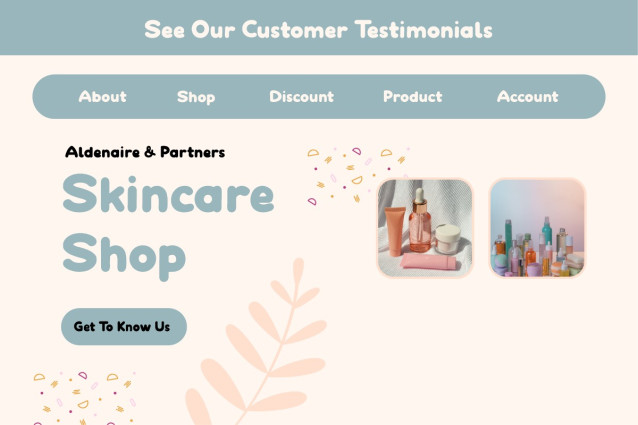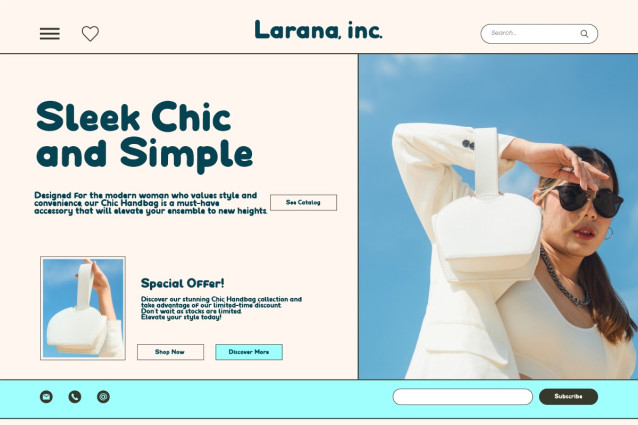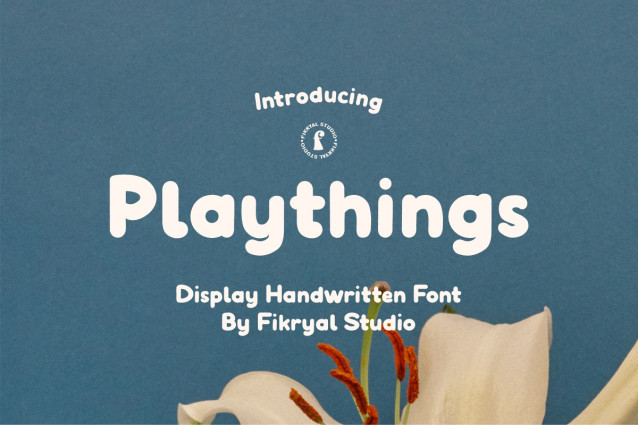
Playthings Playful Font
Playthings Playful Font – Handwritten Display Font is a type of font designed by hand to provide a unique and personal touch to your design projects. With its cheerful and gentle handwriting style, this font brings about a relaxed yet captivating ambiance, making it suitable for various creative endeavors.
With its soft line details and natural characteristics, the Playthings Handwritten Display Font exudes warmth and familiarity. This font is well-suited for use in various design contexts, including poster design, greeting cards, invitations, branding, logos, and much more. The font’s strength lies in its ability to capture the warmth and personal touch of handwriting, presenting a sense of intimacy that can connect with your audience.
No matter the type of creative project you’re working on, the Playthings Handwritten Display Font will be a valuable asset that infuses the warmth of handwritten text into your designs, creating an unparalleled sense of friendliness and joy. With its distinctive style and captivating appearance, this font helps you communicate messages with an even more authentic allure.